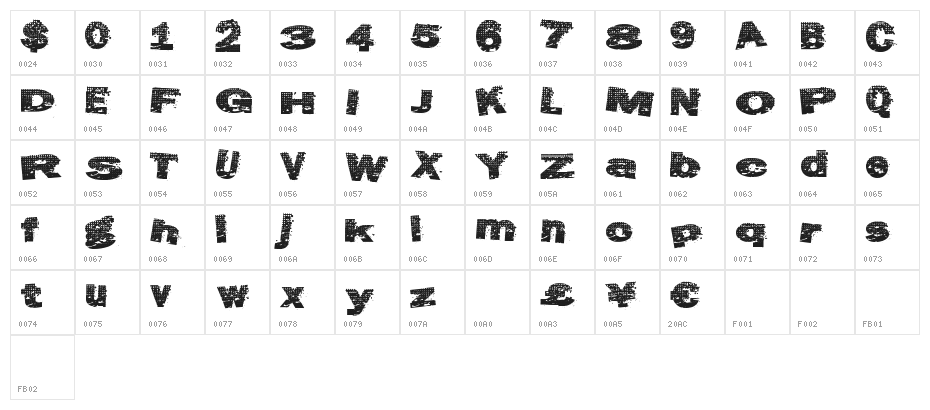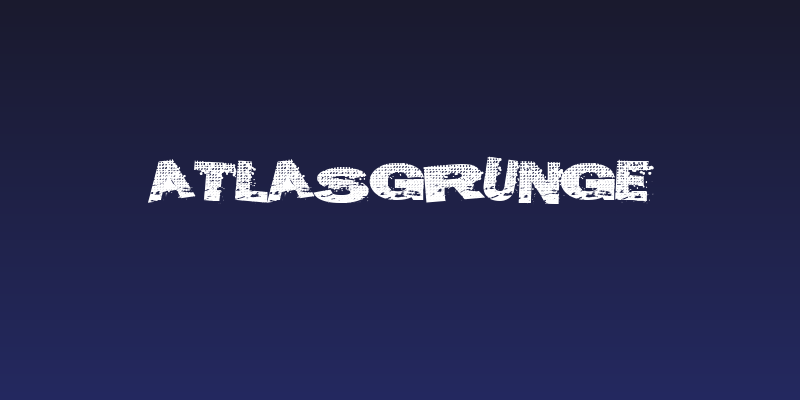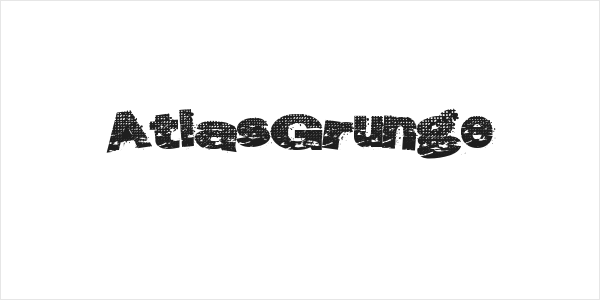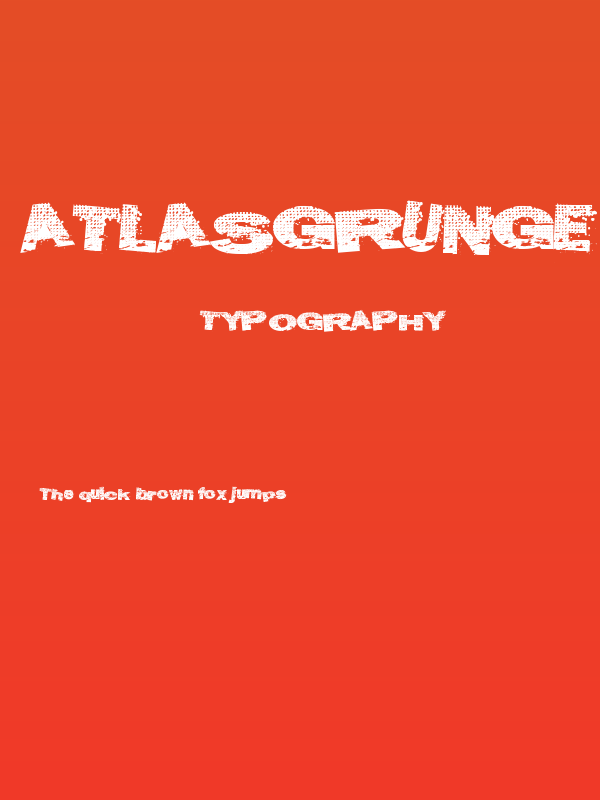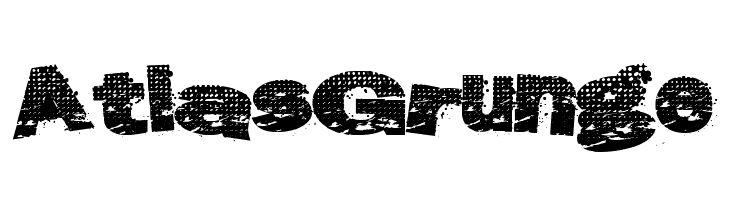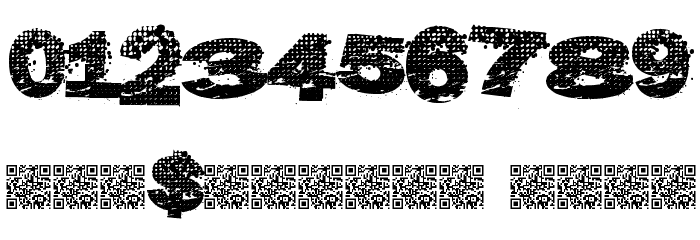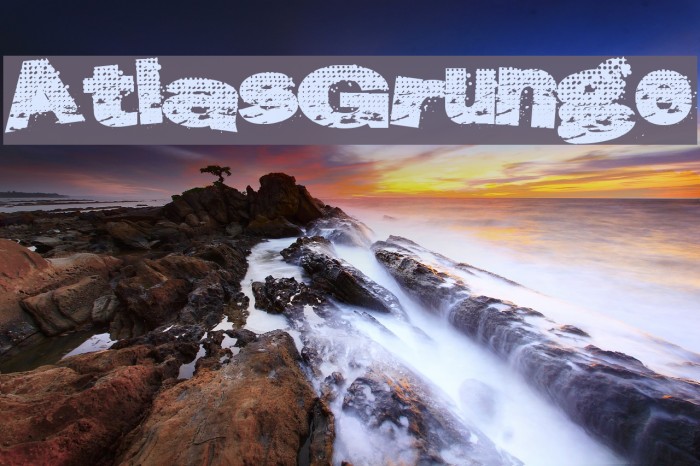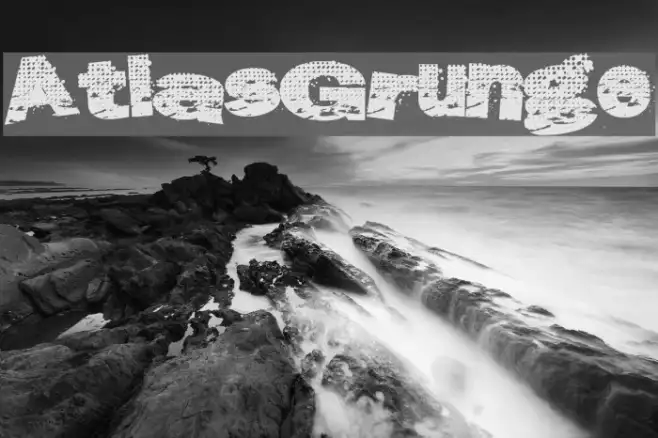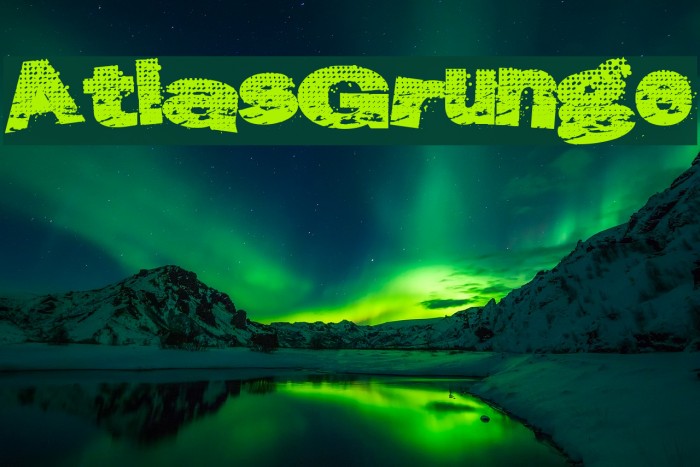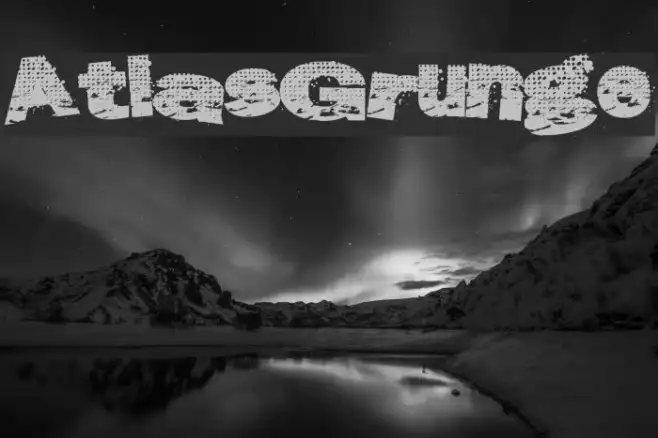
AtlasGrunge Font
AtlasGrunge Description
This font exhibits a bold and distressed style, characterized by a grunge texture overlay that gives it a rugged and edgy appearance. The letters are bold and impactful, with a rough, uneven surface that suggests a worn or weathered look. The uppercase and lowercase letters maintain a consistent style, with the texture adding a dynamic and energetic feel. Numbers and special characters follow the same design, ensuring uniformity across all glyphs. The font's unique aesthetic makes it suitable for projects that require a strong, rebellious, or urban vibe.
| Overall Style | Grunge, Urban, Edgy |
| Proposed Projects | Ideal for music album covers, streetwear branding, posters, and urban-themed designs. |